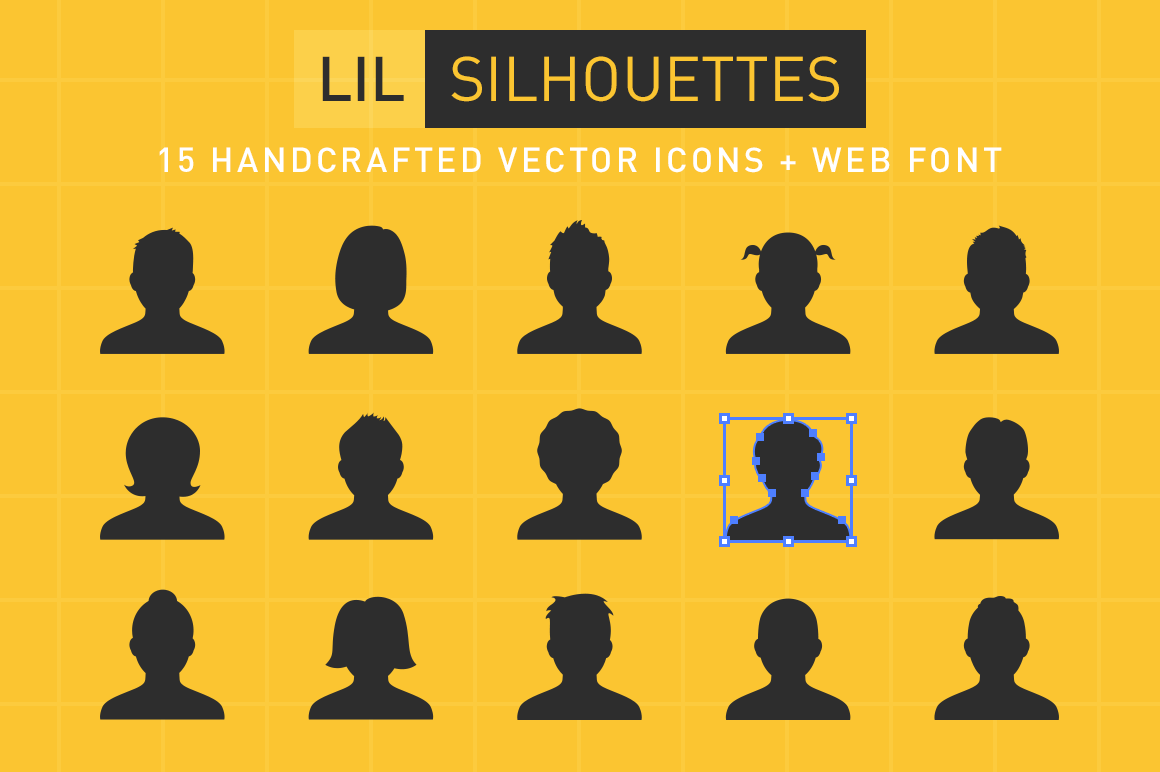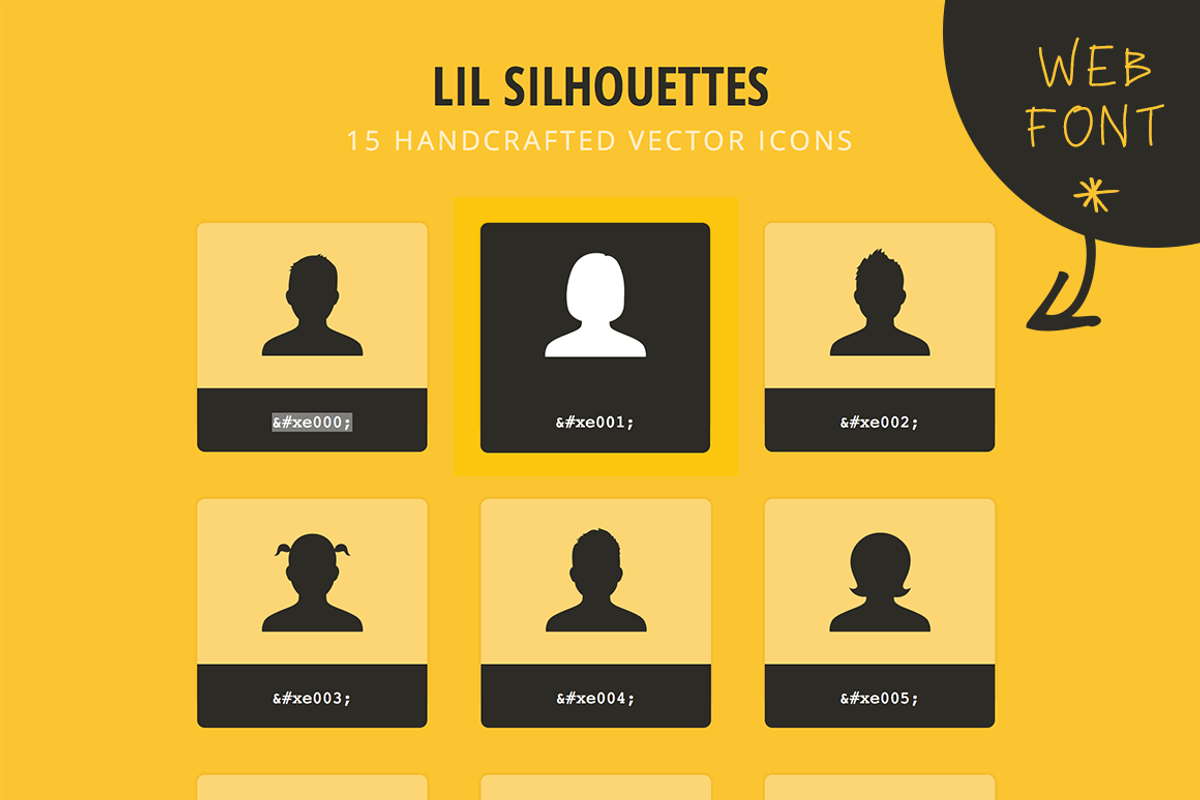
Lil Silhouettes Icon & Font
I personally know how hard it is to find a good selection of silhouette icons of people. You buy and download an icon pack only to find a very basic generic silhouette that barely looks half human, sometimes the icon is just a unisex representation of a person.
Lil Silhouettes is an icon and font pack of 15 human icons ready to be used in a non-generic way!